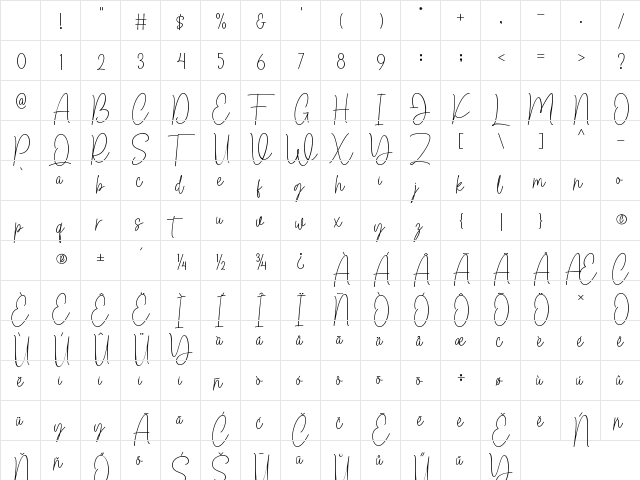
Complete Candy Chocolate Regular glyph index. Displaying only characters natively supported by Candy Chocolate Regular font.
Candy Chocolate is a composed and adaptable typeface that performs quietly and consistently across a wide range of design contexts.